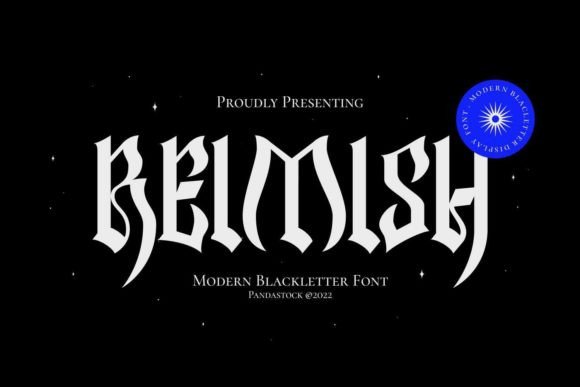
Embark on a typographic journey with Reimish, the blackletter font that exudes elegance and intrigue. Step into a realm of creativity where your words dance with a timeless beauty, leaving an indelible mark on the hearts of your readers.
Reimish is not just a font; it's an artistic expression that captures the essence of classic blackletter calligraphy. Its intricate curves and delicate flourishes evoke a sense of artistry that is both captivating and awe-inspiring. Let Reimish transform your designs into masterpieces, adding a touch of sophistication and flair that will leave your audience breathless.
With Reimish, you have the power to create designs that speak volumes. Its bold and daring personality makes it the perfect choice for headlines, logos, posters, and any project that demands attention. Its unique letterforms add a touch of intrigue, drawing the eye and inviting readers to delve deeper into your message.
Unleash your creativity and let Reimish guide you through a world of endless possibilities. Whether you're designing invitations, brochures, or website layouts, Reimish will elevate your work to new heights. Its versatility knows no bounds, making it a must-have for any designer's toolkit.
Immerse yourself in the world of Reimish and discover the true power of typography. Its timeless beauty and captivating presence will leave a lasting impression on your audience, ensuring that your message resonates with them long after they've finished reading.